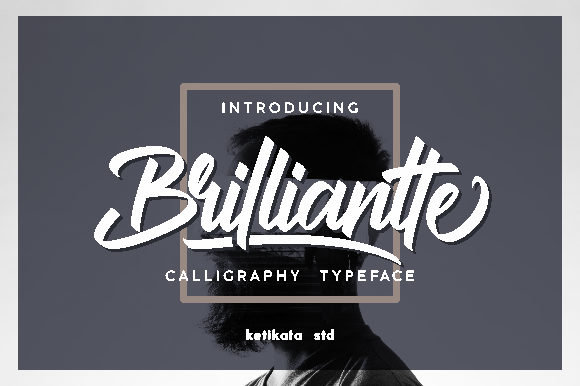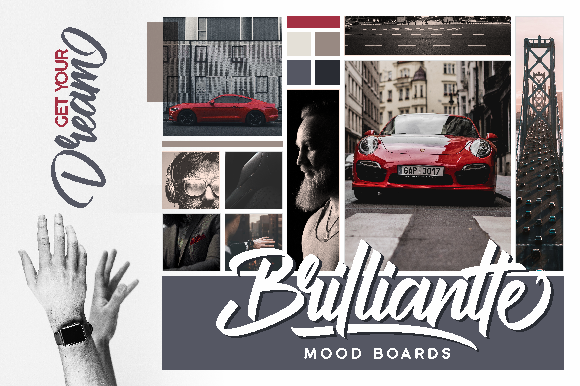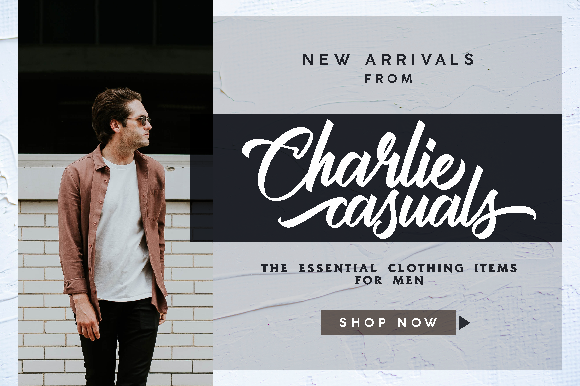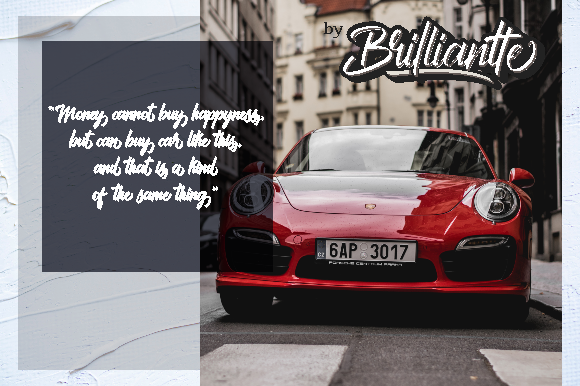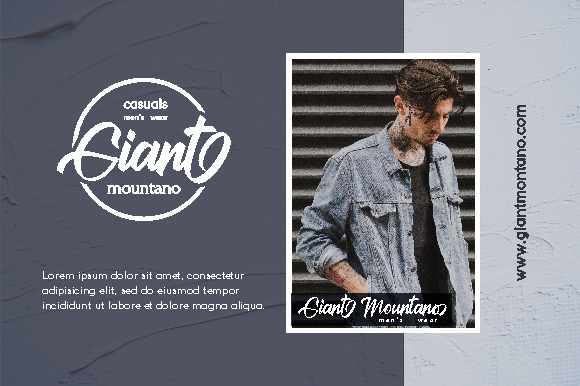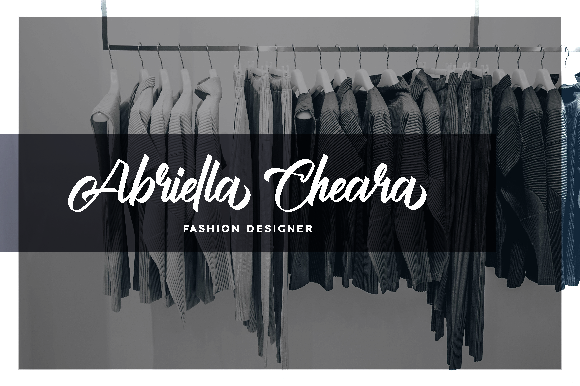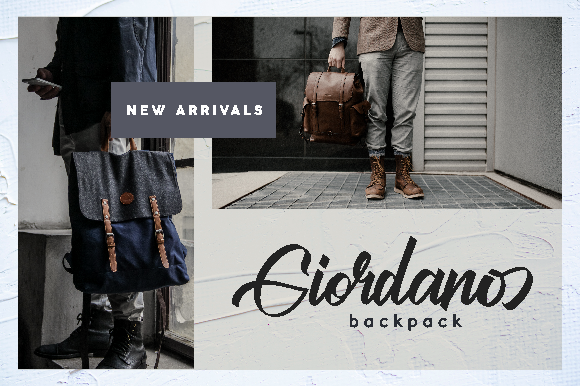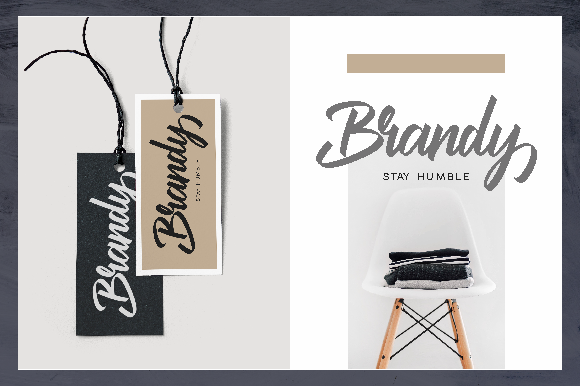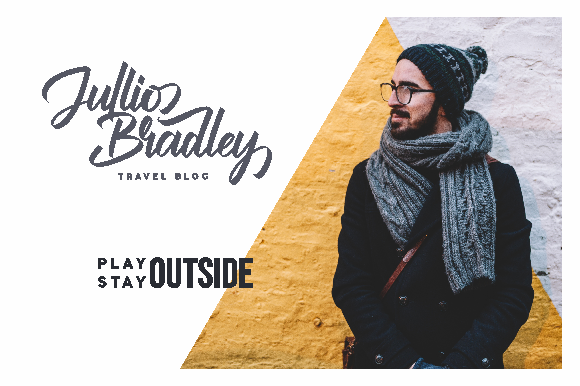
Brilliantte Script Font
About Brilliantte Script Font
The Brilliantte is a striking calligraphy font. It was carefully crafted from a sketch. It has a young and energetic feel which can be used to create an unique logo, name tag, quote, business cards, and much more!